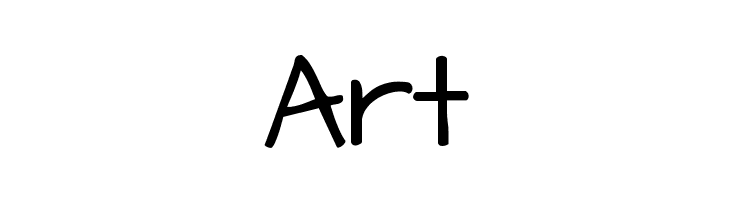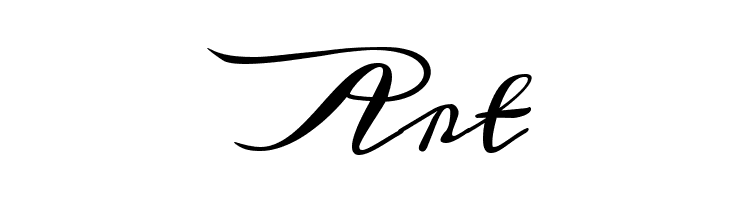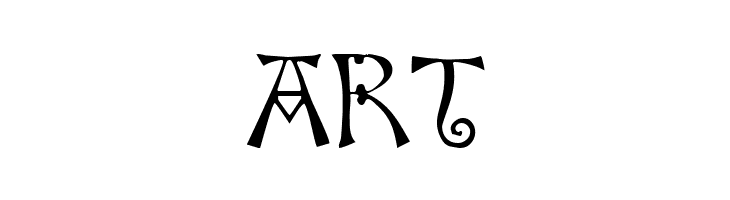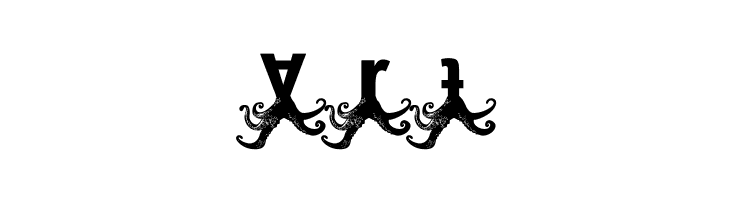
A whimsical and decorative font with elegant, flowing strokes and artistic flourishes.
A playful, handwritten-style font with rounded, informal characters.
An elegant, cursive font with flowing, ornate characters.
An elegant cursive font with ornate loops and swashes, perfect for formal and decorative use.
A playful and eclectic font with geometric and whimsical elements.
An ornate and decorative font with elaborate swirls and flourishes.
An ornate and decorative font with intricate swirls and flourishes.